“木 (Ki)” That Cannot Be Copy-Pasted 01: “Harai (Sweeping) and Ten (Stop Brush)”
From this time, I would like to focus only on “木 (Ki)” and introduce what kind of adjustments are made in creating kanji. There are a lot of kanji with “木 (Ki),” such as “札, 杉, 村, 極, 機, 樹, 呆, 栄, 柴, 新, 欝,” etc. When “木 (Ki)” is reused by copying and pasting, the outline of the character becomes unnatural. Therefore, various adjustments are made to match each character.
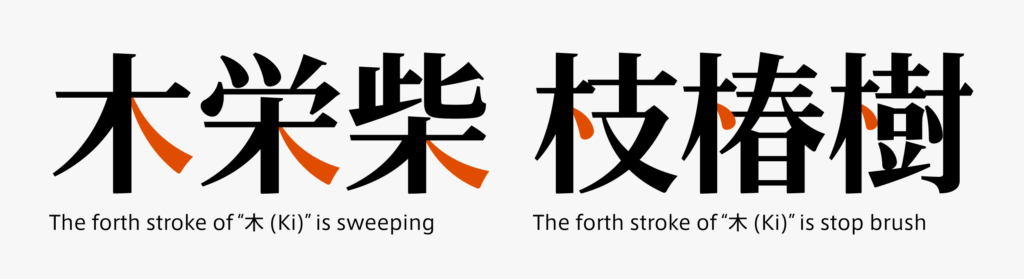
First, there are two patterns of a major change: to sweep or stop brush on the forth stroke. For “木 (Ki)” located at the center or right, such as in tsukuri and ashi, sweeping is often used on the forth stroke. For “木 (Ki)” located on the left, such as in hen, a stop brush is often used on the forth stroke. Regarding features, in the case of sweeping, the length of sweeping on the right and left tends to be the same. In the case of a stop brush, the length of sweeping on the left is clearly shortened. These two patterns are common in other radicals, such as “禾, 米, and 耒,” of which the shape is close to “木 (Ki)”.